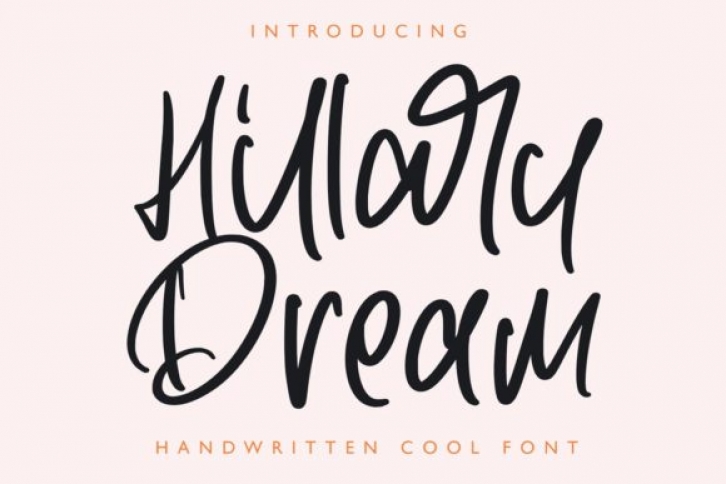
Hillary Dream is a gorgeous and incredibly stylish handwritten font.
It looks beautiful on a variety of designs requiring a personalized style, such as wedding invitations, thank you cards, weddings, greeting cards, logos and so on.